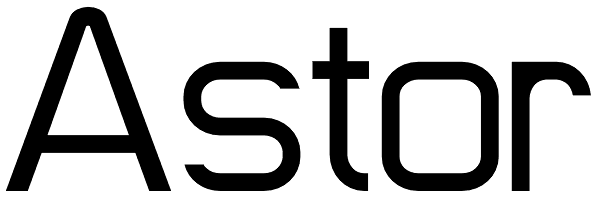
Astor
New Eurostile! A redesigned Eurostile font, Astor font, was created inspired of one of most used fonts in the world. Idea was to make new, contemporary design of old Eurostile font which was created 1962. by designer Aldo Novarese. Main...
Astor Font